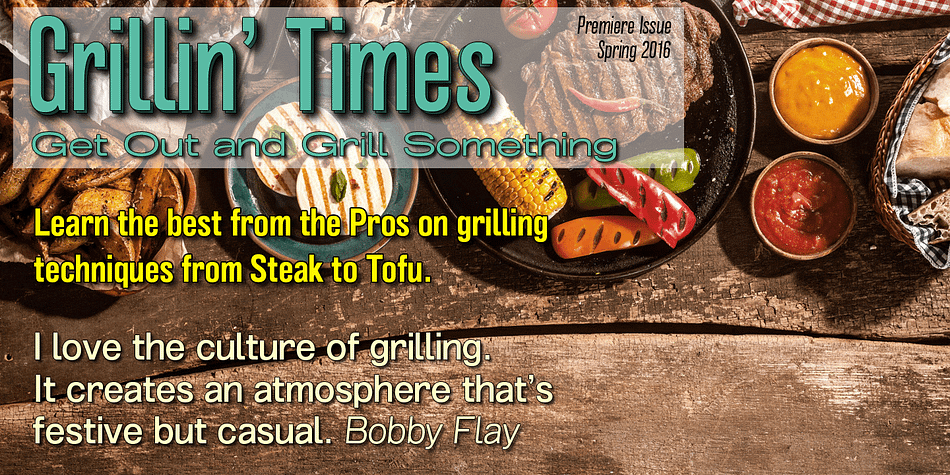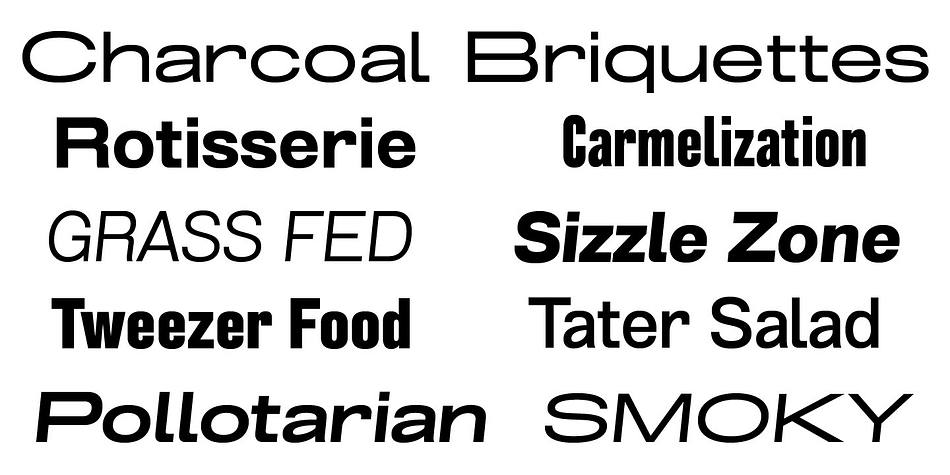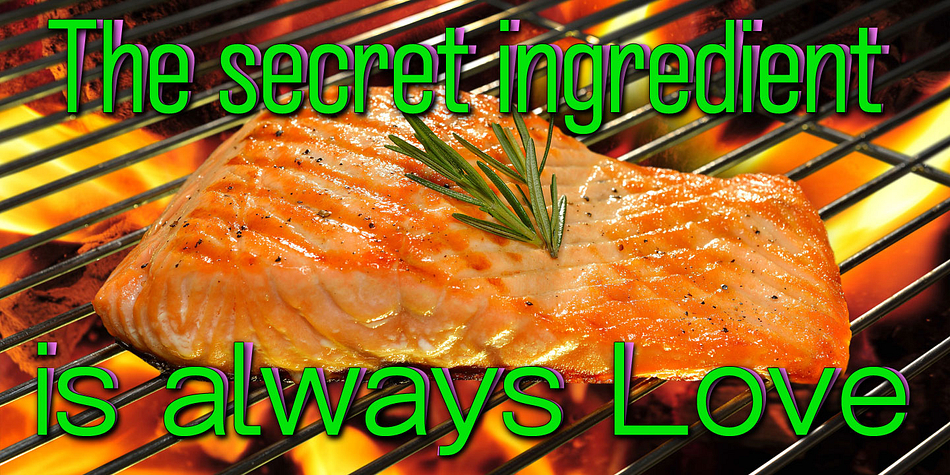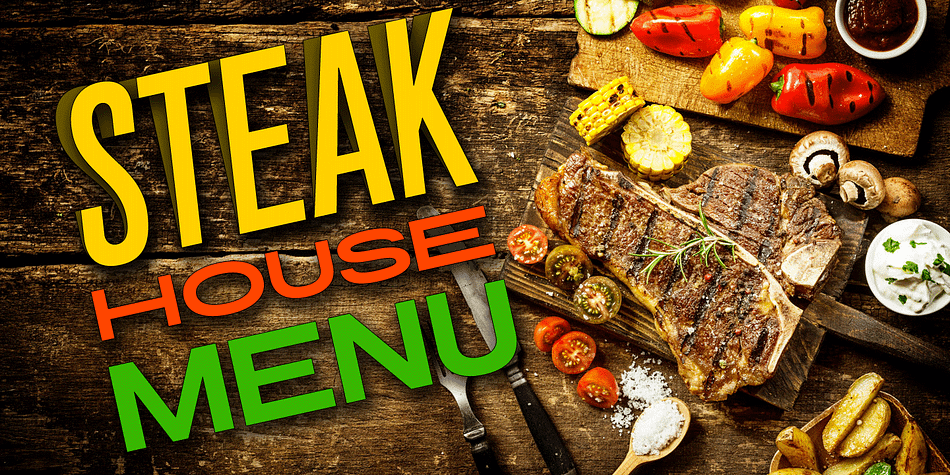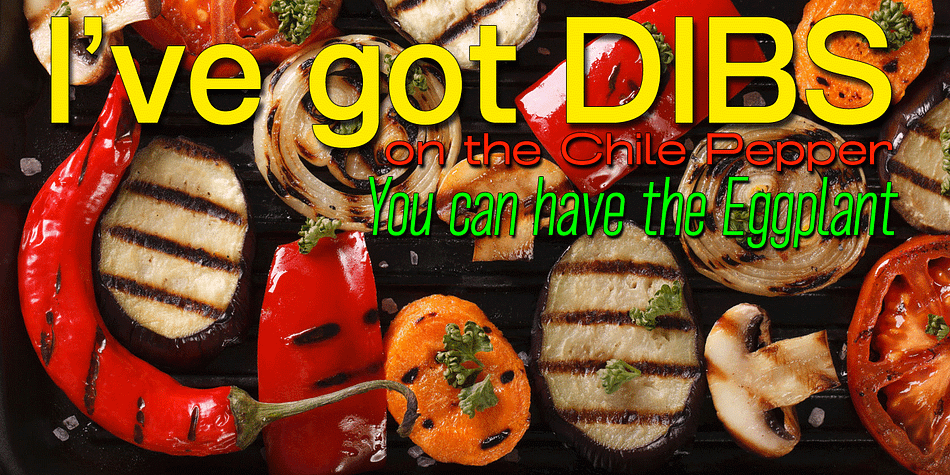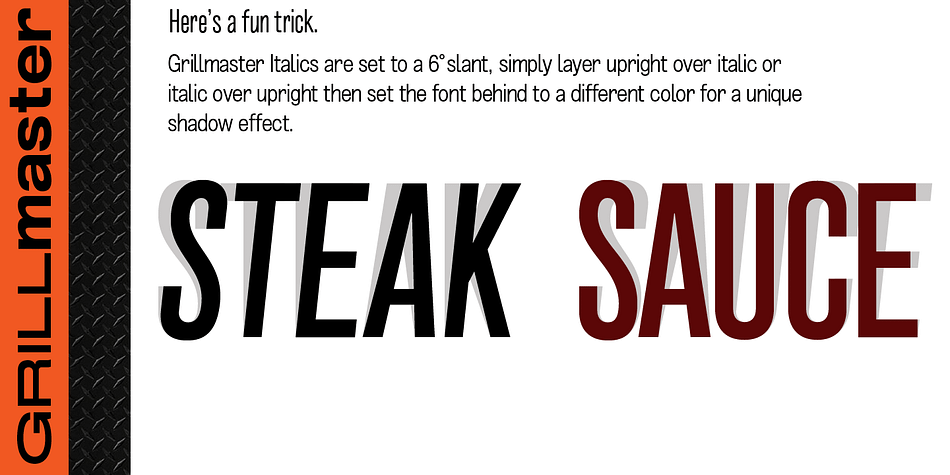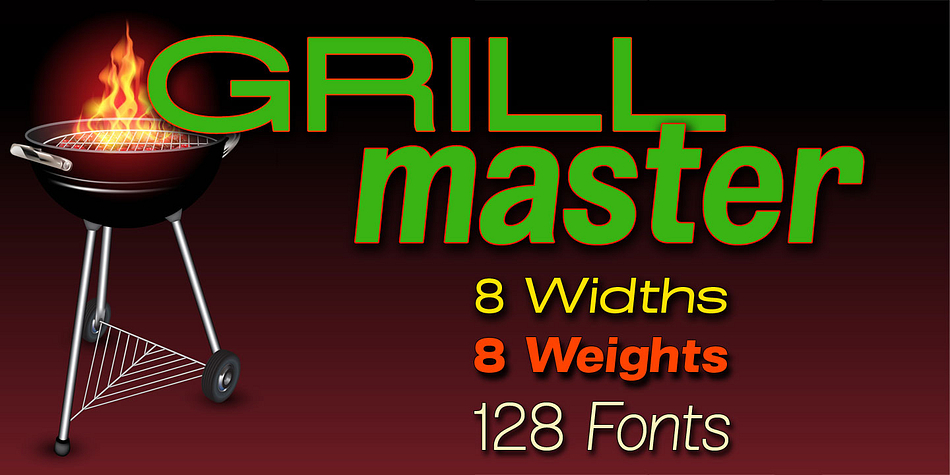
Designed by Michael Hagemann, Grillmaster is a sans serif font family. This typeface has one hundred and twenty-eight styles and was published by FontMesa.
Grillmaster is a nice clean sans serif that you’ll find many uses for with eight widths and eight weights in each width set plus italics.
It’s always grillin’ season with Grillmaster, 128 font files strong Grillmaster is ready to serve large crowds and dinner parties.
So put on some cheap shades and cut off jeans then fire up the grill and turn up that perfect song on the radio, the Grillmaster is here to satisfy your apatite, I guarantee you wont go home hungry.